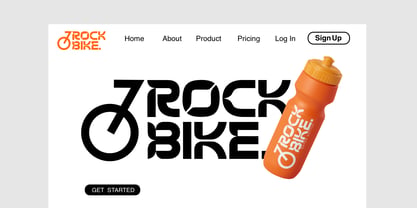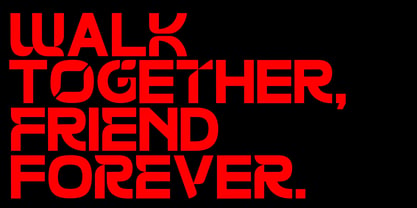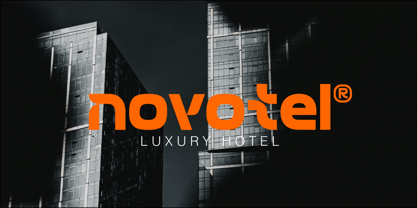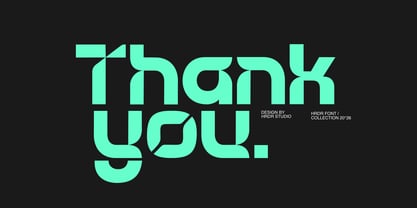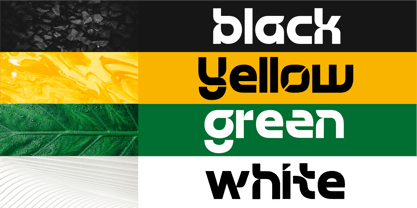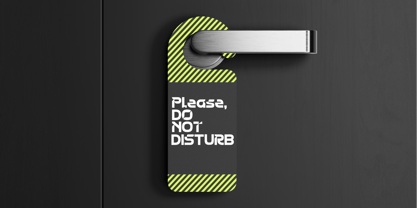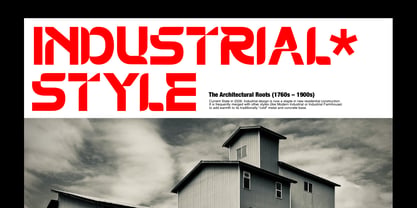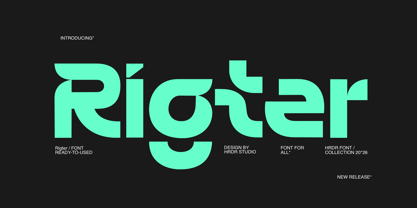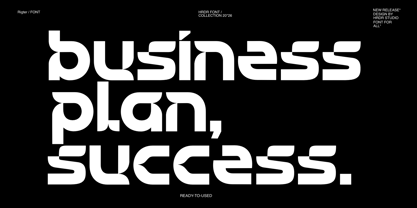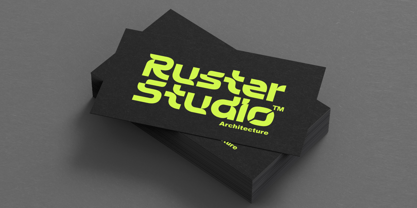
Rigter
by HRDR
The Rigter Font Family was designed by Dede Mulyadi and published by HRDR. Rigter contains 1 styles. More about this family
Embrace a contemporary aesthetic with Rigter, a versatile type style ideal for logos, branding, film production, and more. Rigter allowing extensive creative flexibility for any project. With Rigter, achieve an elegant yet strong visual identity suitable for various applications, from motion graphics to packaging. Font Features : Uppercase and Lowercase, Numeric and Multilingual support, Ligatures for effortless connection ,Stylistic Alternates with Ss01, Ss02 & Ss03 for creativity and customization.